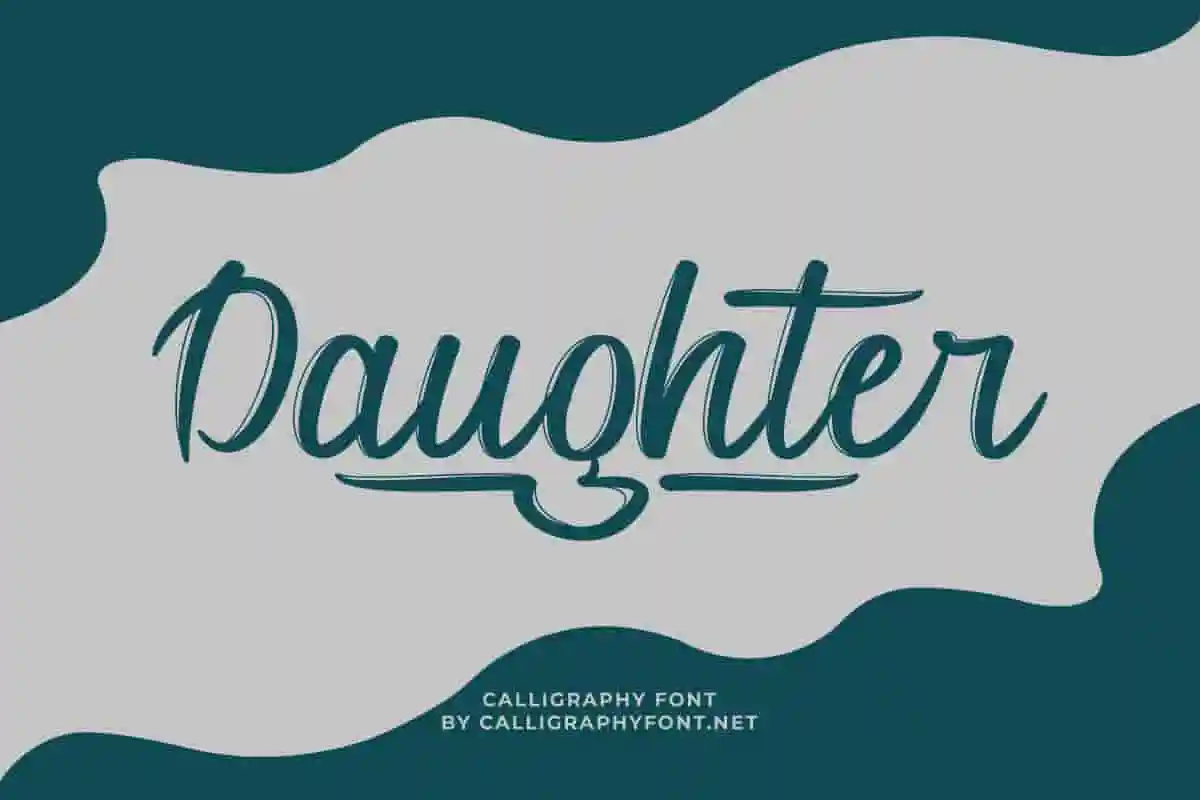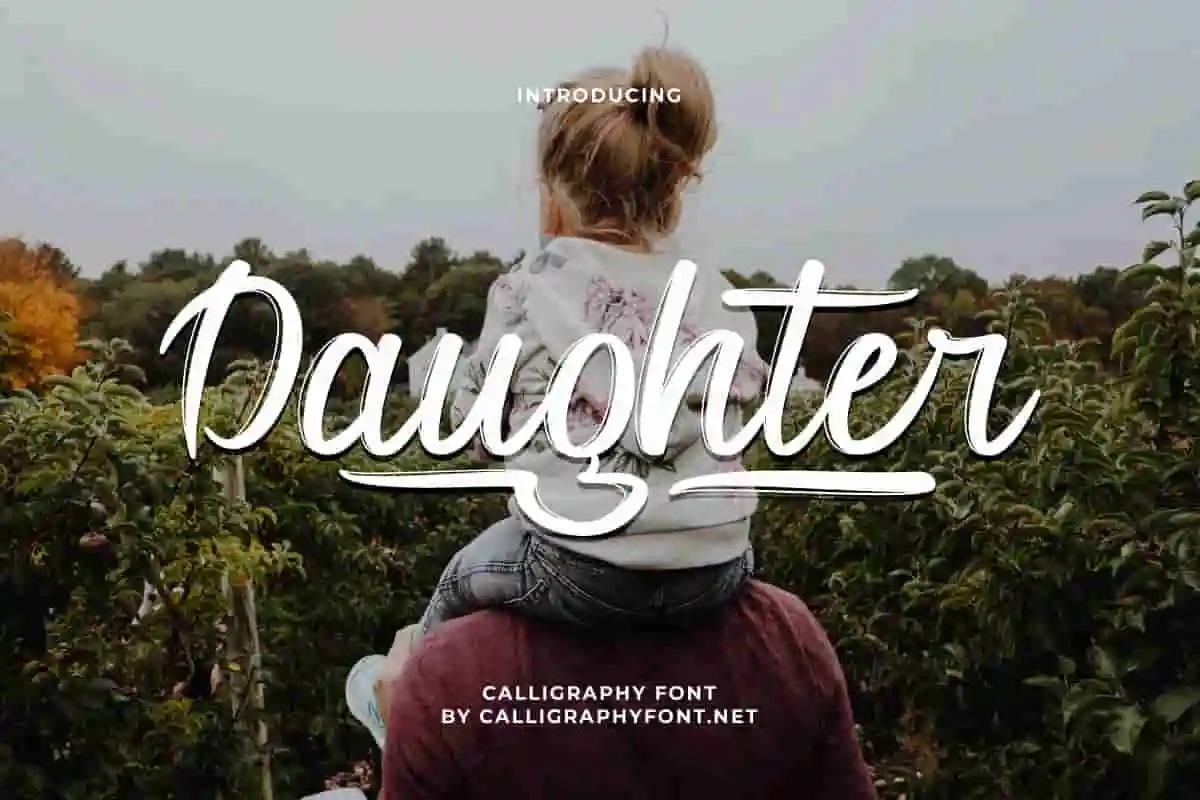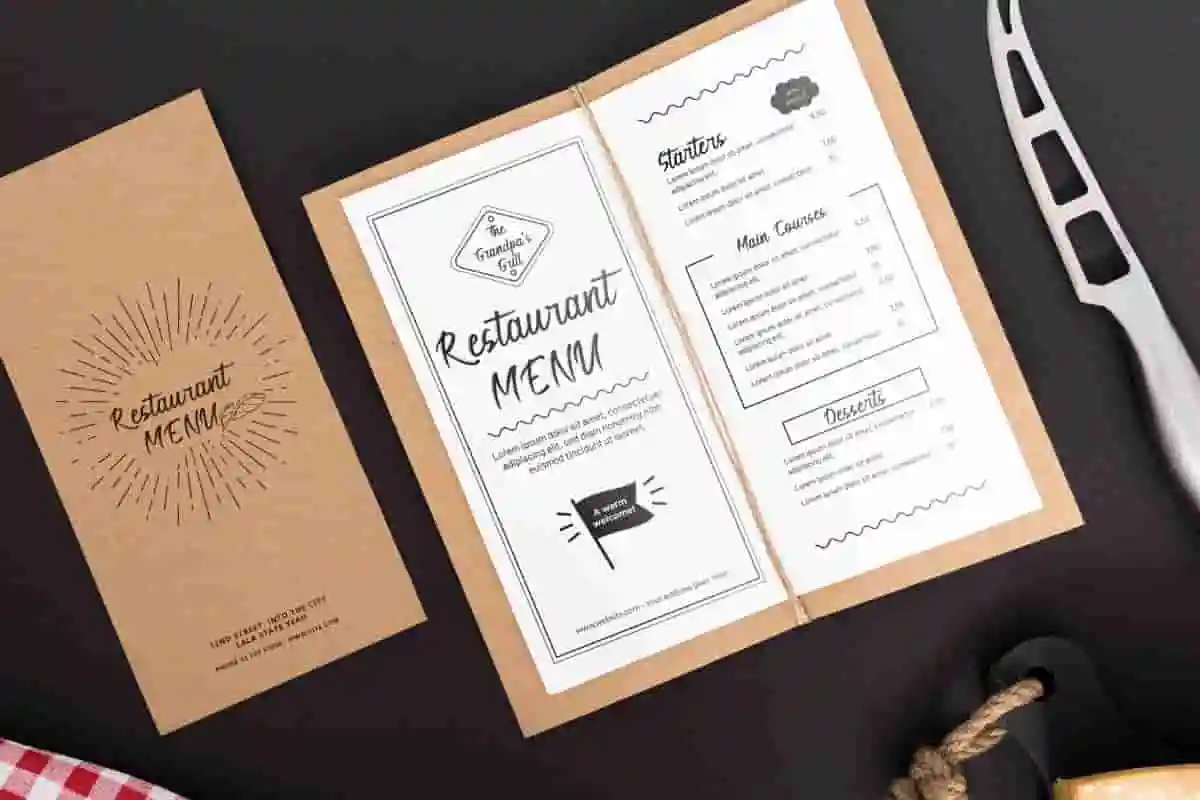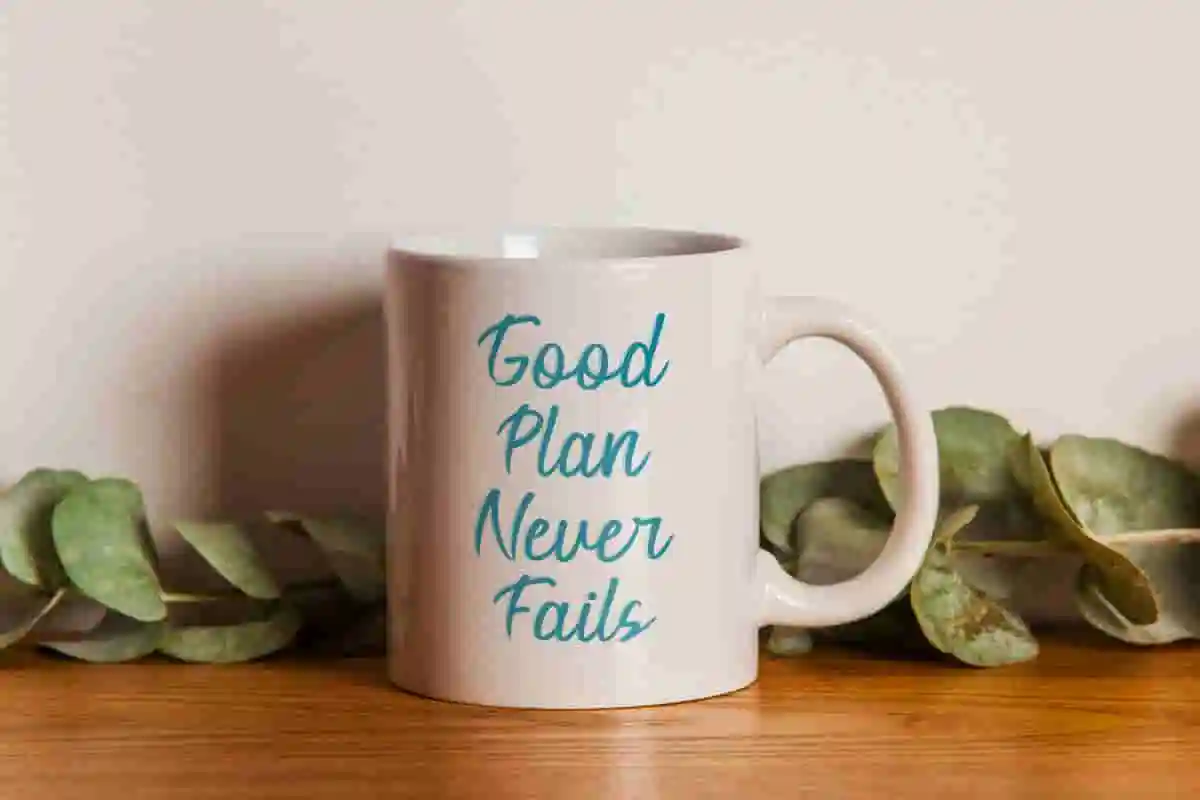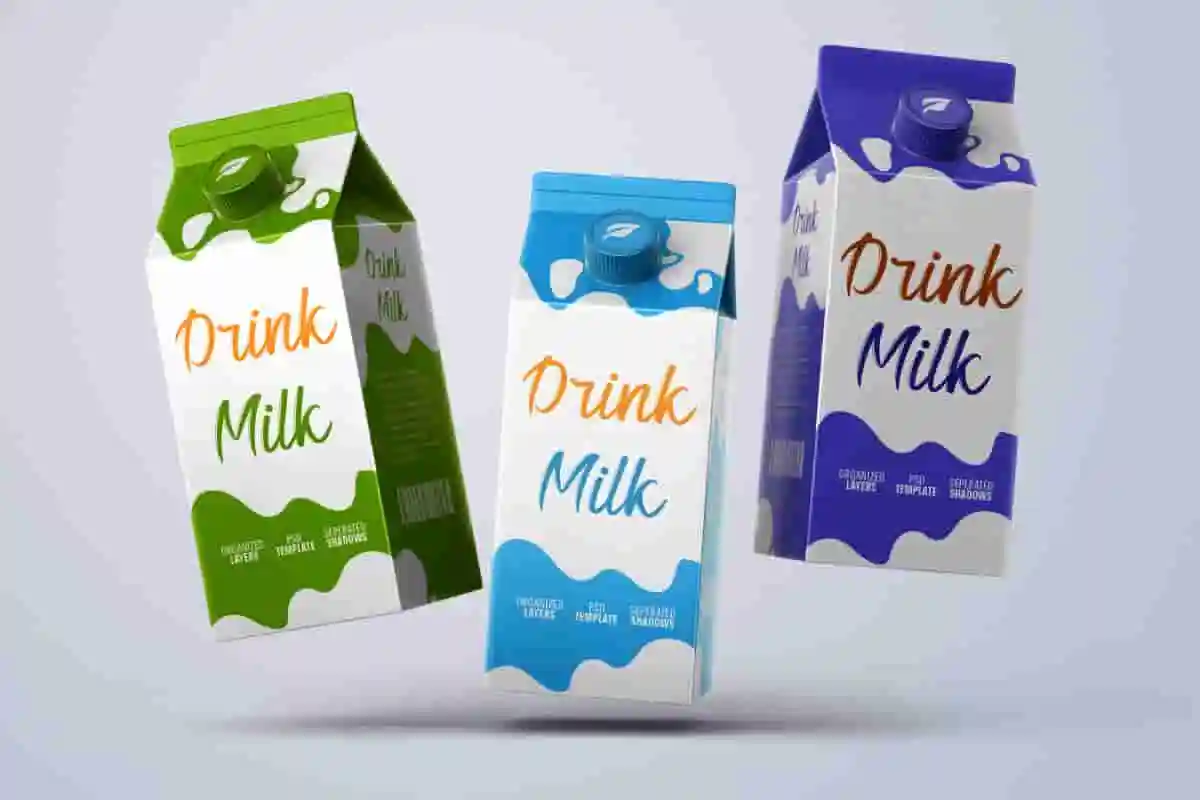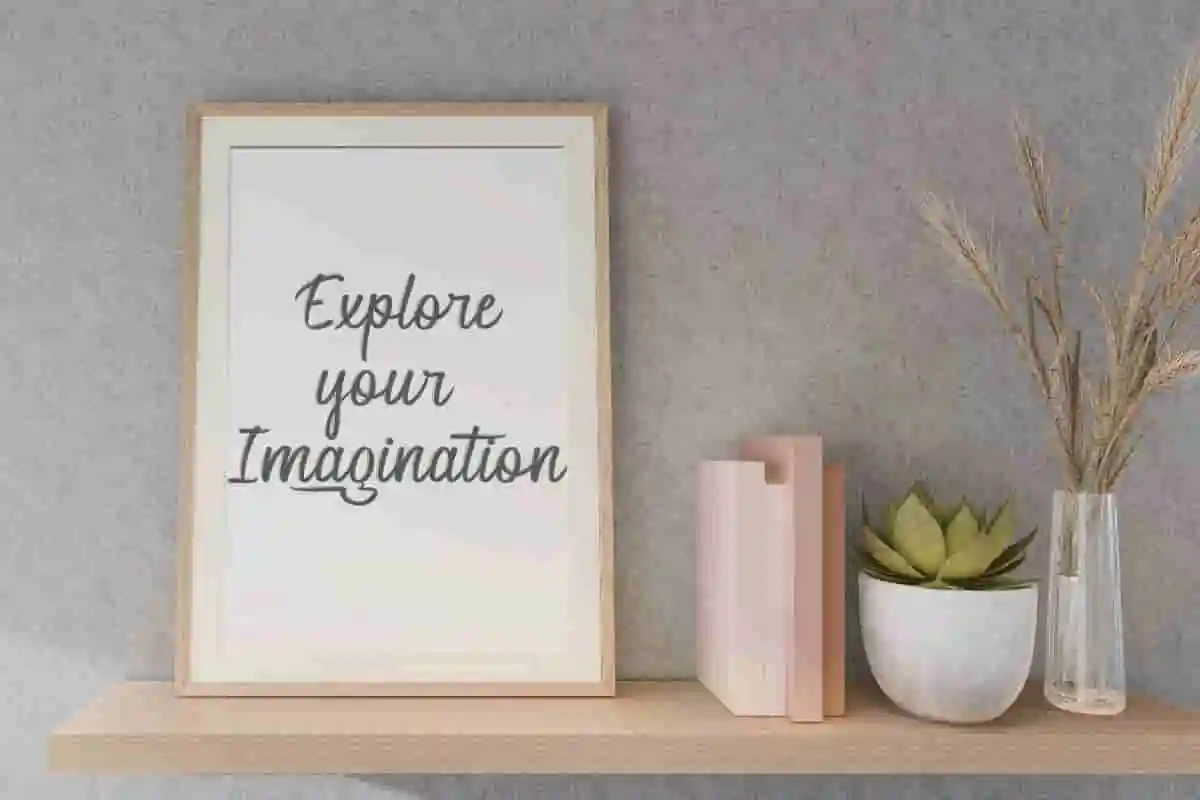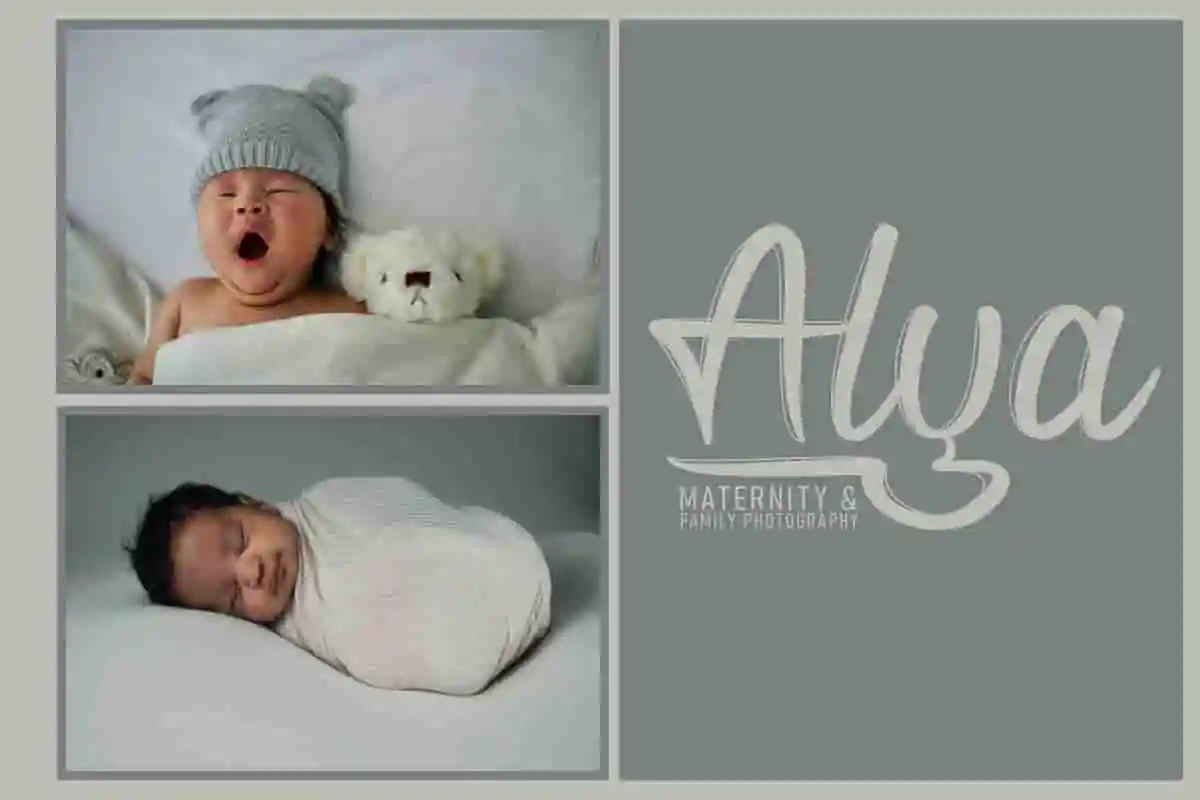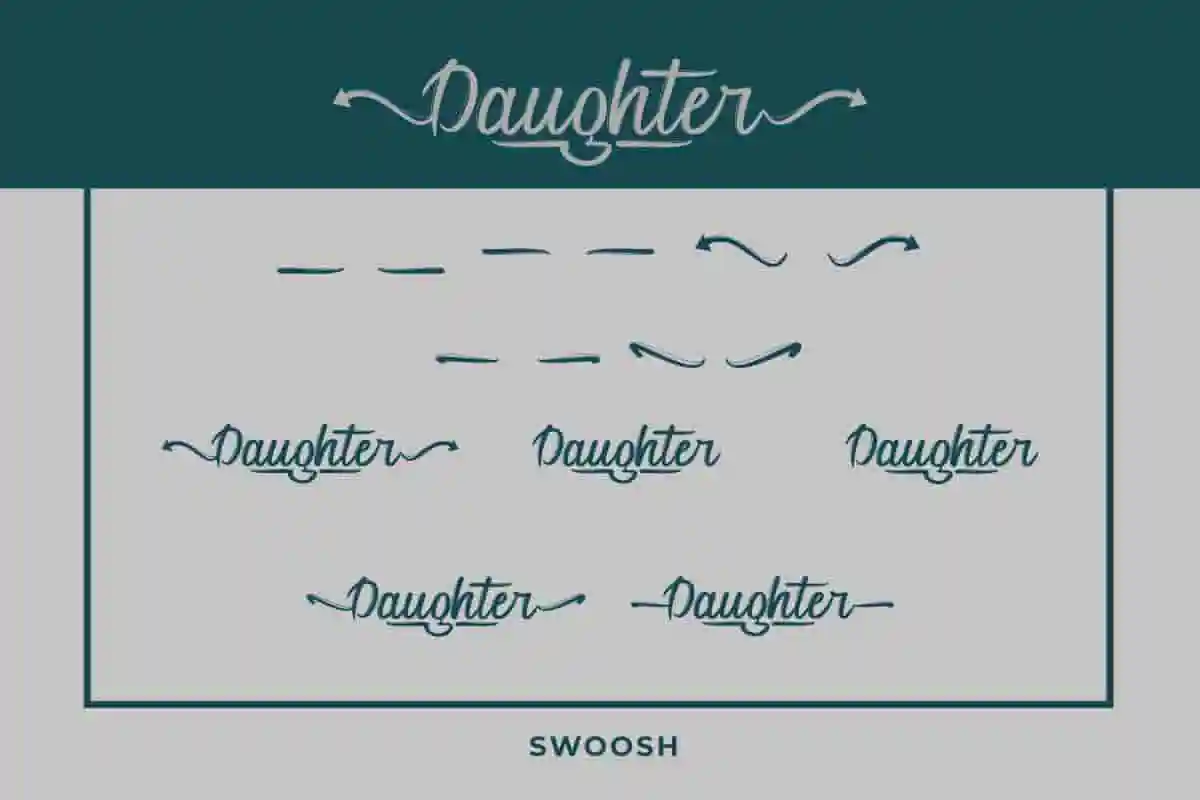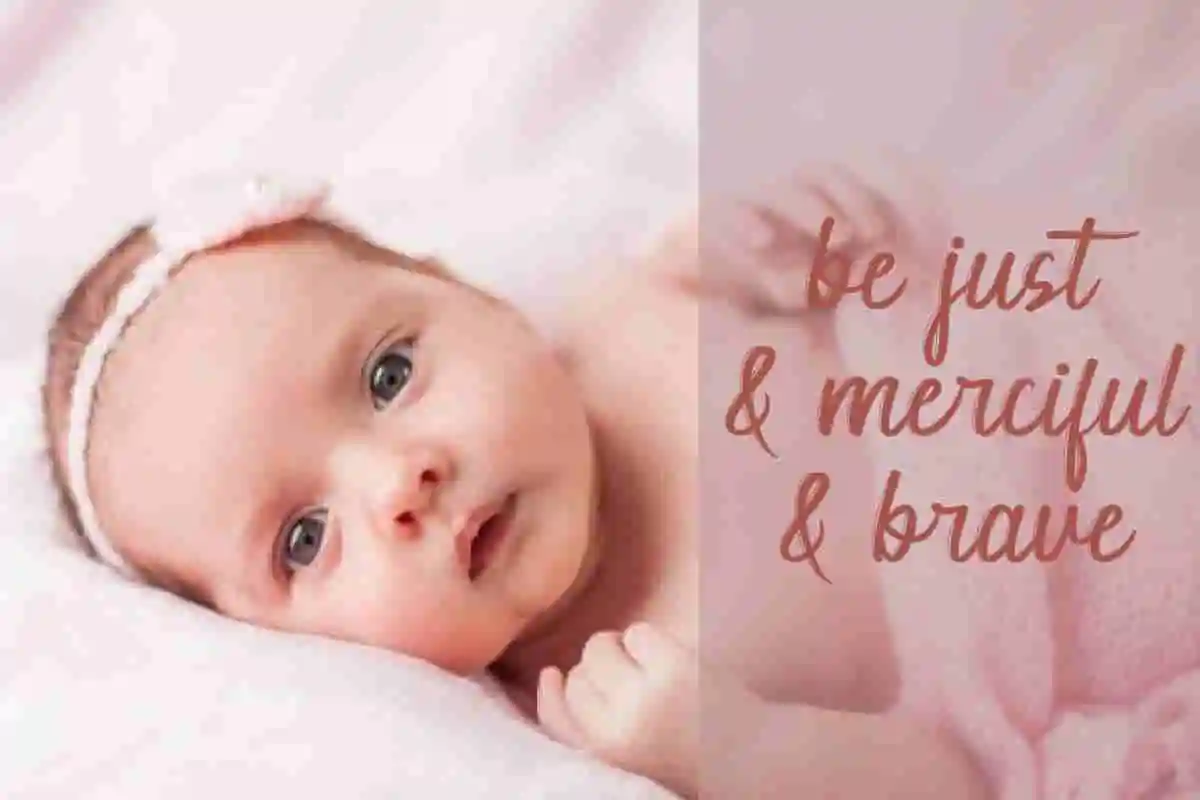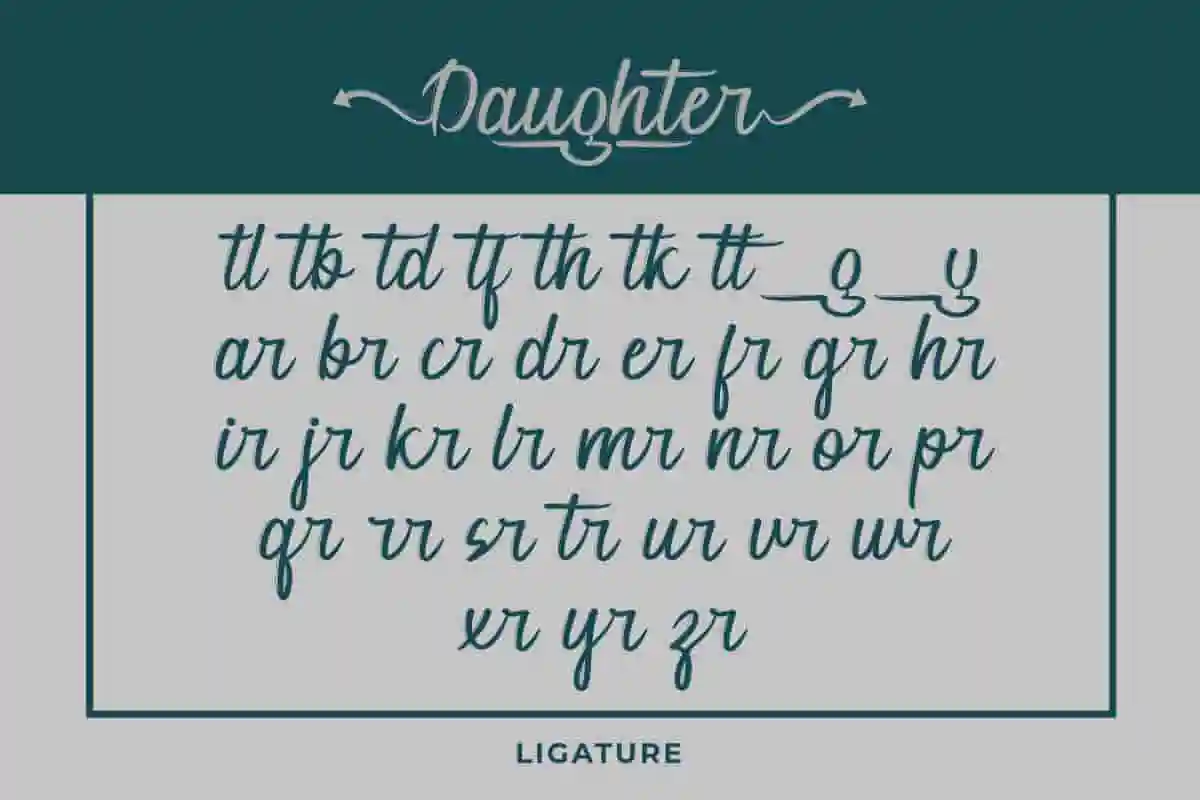
Daughter Brush Font
Daughter Font is a calligraphy brush font by CalligraphyFonts.net, Buy License to use it for Commercial purposes. Awesome for branding projects, homeware designs, product packaging – or simply as a stylish text overlay to any background image.
Daughter is a brush calligraphy font with a unique style ; delivering a stylish script which is guaranteed to add an eye-catching appeal. The style of this font are stylish, classic, elegant, a fresh new handwritten brush script with a touch of class, and of course, outstanding looks 🙂
Bring your designs to life with Daughter Brush Font, a stunning hand-brushed typeface that blends raw artistic strokes with modern style. Designed for creatives who want their work to stand out, this font delivers boldness, energy, and authenticity in every letter.
With its bold strokes and artistic charm, Daughter Brush Font is more than just a typeface—it’s a personality. It speaks loudly, commands attention, and adds a genuine human touch to your creative work.
Daughter Font tested Work on PC & Mac. It is inspired by old style and combination with Hand Lettering style. We made with personality touch every single sketch. I hope this can make inspire you from your work. will be awesome for poster, logos, handwritten quotes, product packaging, header, poster, merchandise, social media & greeting cards. Also great for branding projects, homeware designs, product packaging – or simply as a stylish text overlay to any background image.